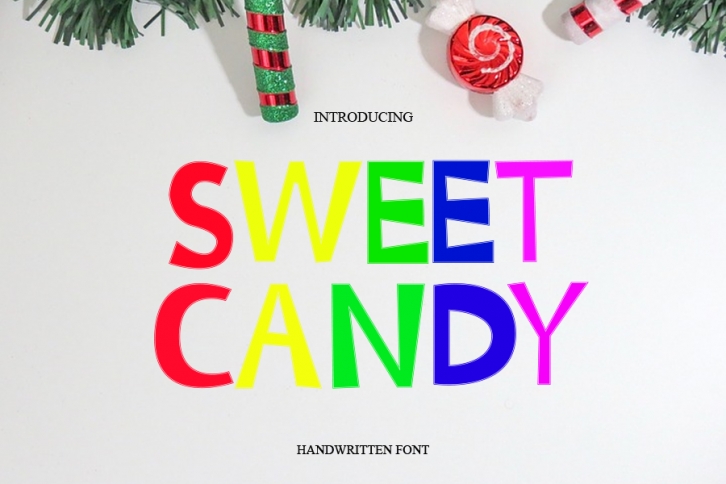
Sweet candy is a bold and playful display font. With slightly uneven characters and a really cool vibe, this typeface is the perfect choice for creative ideas that need to stand out!